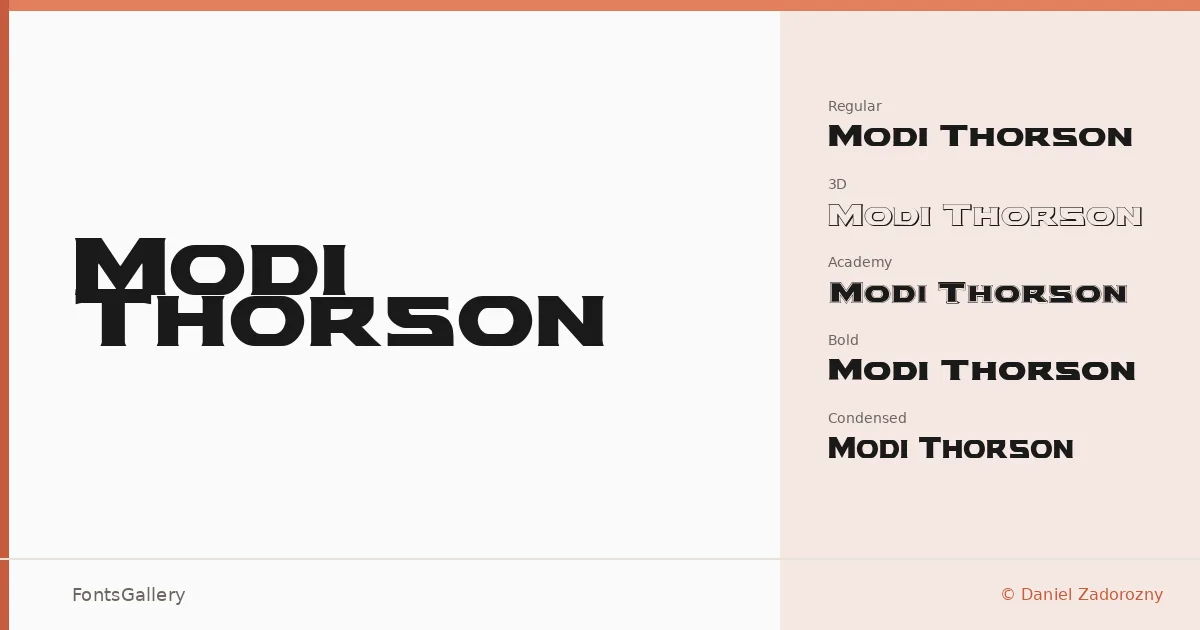
About Modi Thorson Font
There is a deliberate tension in these letterforms — geometrically clean at their core, yet charged with enough personality to read as something genuinely distinctive at display sizes. Daniel Zadorozny, working under the Iconian Fonts banner, has built a family that leans into the futuristic end of modern Latin typography without tipping into novelty. The construction is confident, with strokes that feel architectural rather than decorative.
This is a display family with serious range across its cuts. The roster spans a Regular through Bold, Condensed and Expanded widths, a suite of italic angles from Semi-Italic through Super-Italic and even a reverse-slant Leftalic, plus a 3D variant, a Gradient variant, and Academy alternates — all delivered as TTF files. The mood sits firmly in bold and professional territory, with the futuristic undercurrent coming through most clearly in the wider and more extreme angle cuts. The Gradient and 3D styles add dimensional options for work where the headline needs to carry real visual weight on its own.
The family earns its place in branding, logo work, posters, and headline treatments where a strong, modern Latin display face is called for — including T-shirt and merchandise applications where the condensed or bold cuts hold up at both intimate and oversized scales. It pairs well with quiet, neutral faces like Helvetica or Abrade that let the display cuts dominate, and equally with more characterful text companions such as Canela, ABC Arizona, or (AH) Manal when a hierarchy with some warmth is needed.